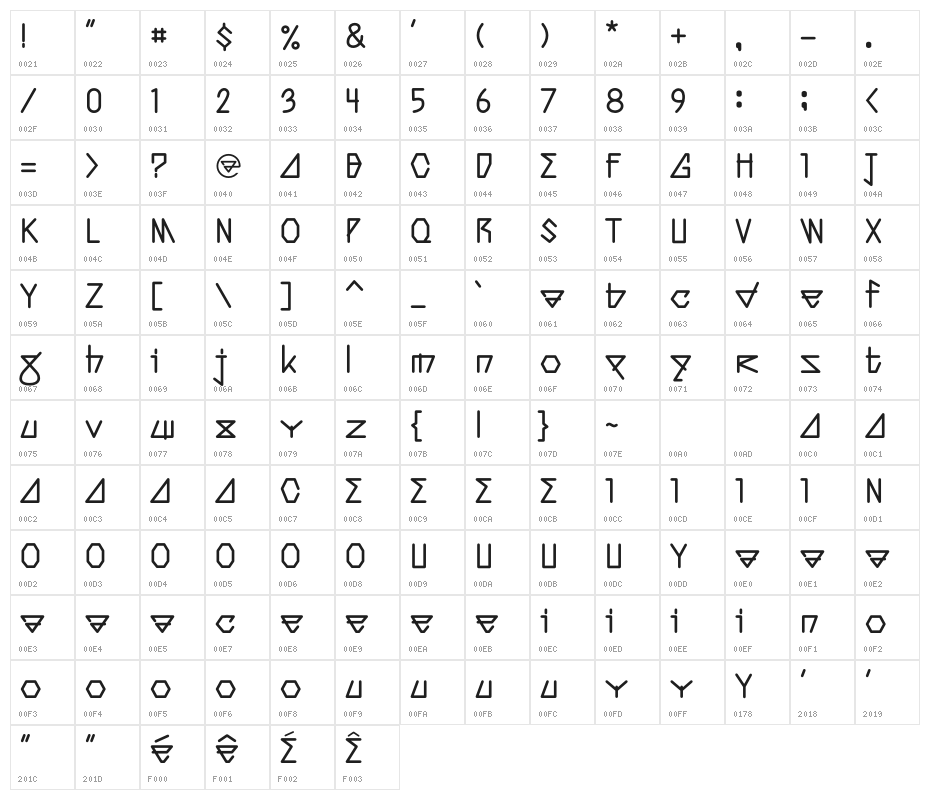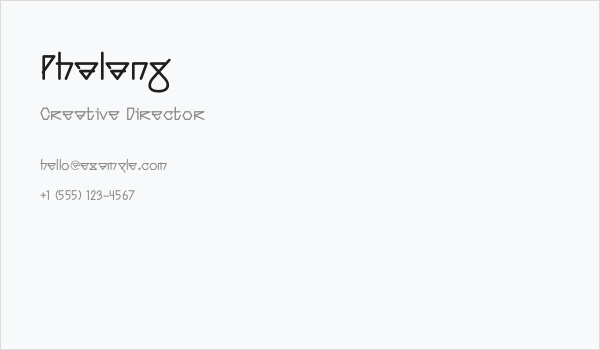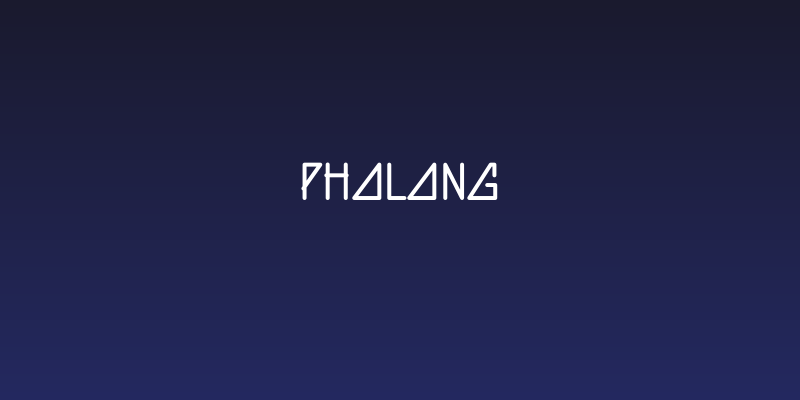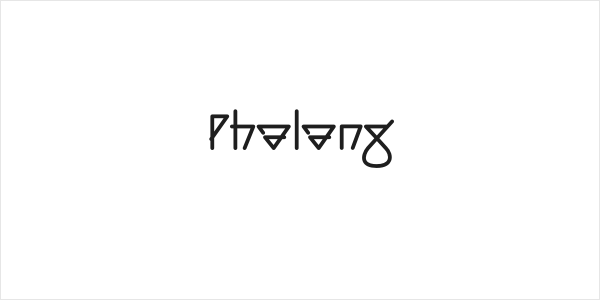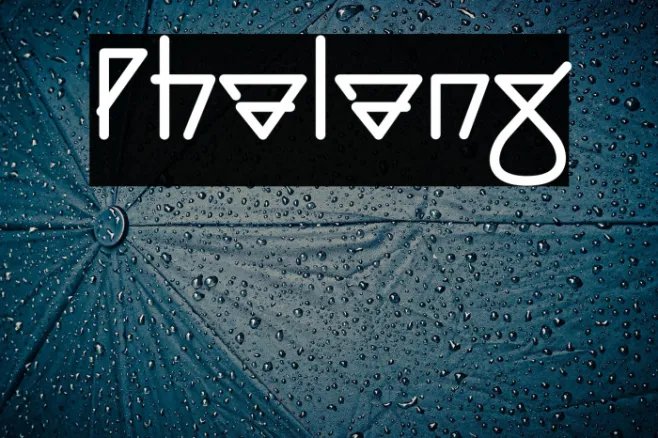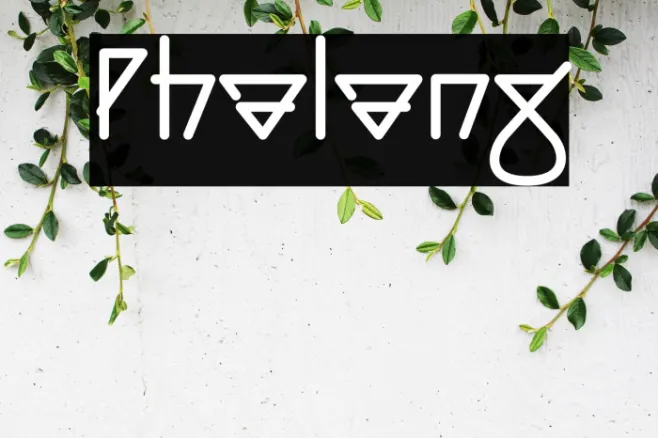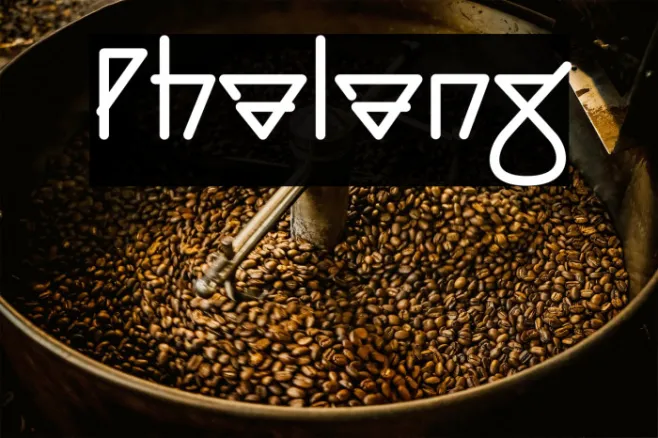
Phalang Font
Phalang Description
This font features a geometric and angular design with a futuristic feel. The uppercase letters are constructed with sharp, triangular shapes, giving them a unique and edgy appearance. The lowercase letters maintain a similar style, with consistent angularity and a slightly condensed form. Numbers are bold and clear, following the same geometric principles. Special characters are designed to match the overall aesthetic, ensuring a cohesive look across all glyphs. The font's distinct style makes it ideal for projects that require a modern and unconventional touch.
| Proposed Projects | Ideal for sci-fi themed designs, modern branding, tech-related projects, and innovative advertising campaigns. |